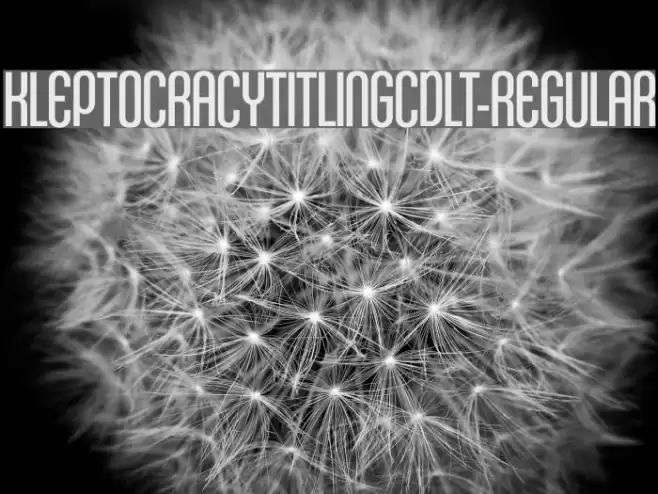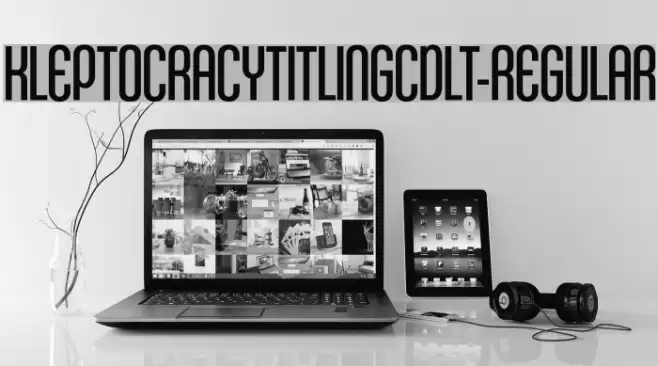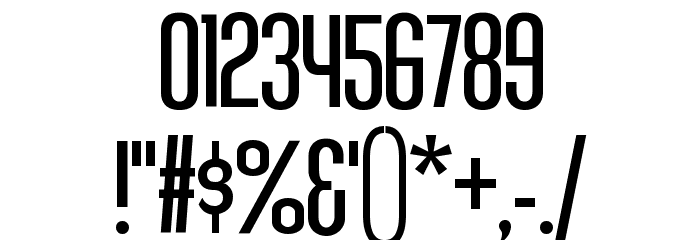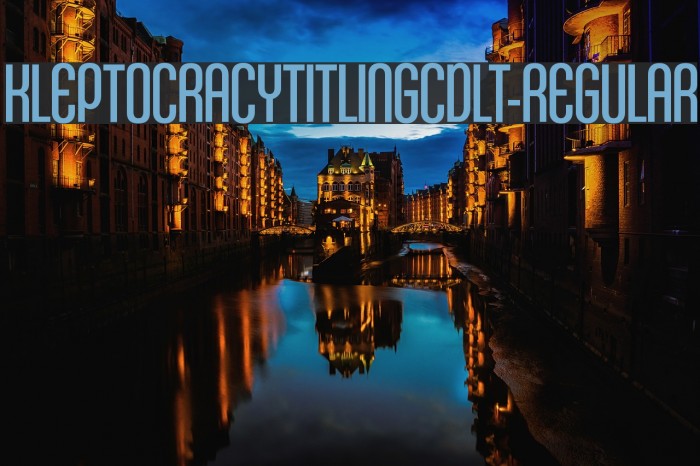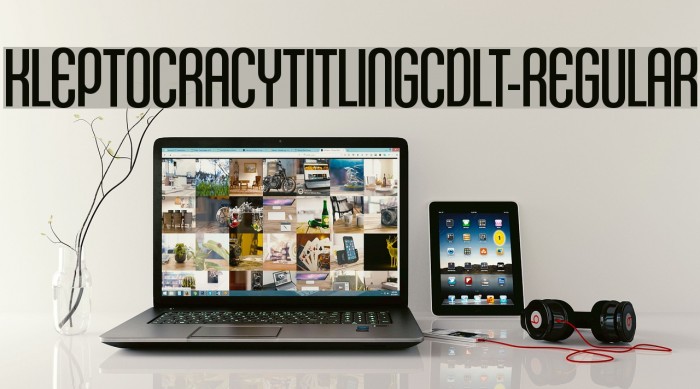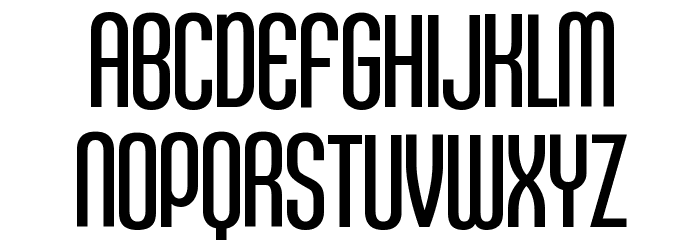
KleptocracyTitlingCdLt-Regular Font
KleptocracyTitlingCdLt-Regular Description
This font features a tall, condensed structure with a modern and sleek appearance. The characters are uniform in height, creating a cohesive and streamlined look. The vertical strokes are prominent, while the horizontal strokes are minimal, giving it a distinctive and elegant style. The font maintains a consistent width across all characters, enhancing its readability and making it suitable for various design applications. Its geometric form and clean lines make it ideal for contemporary projects that require a bold yet sophisticated touch.
A tall, condensed font with a modern and sleek appearance from Uncategorized fonts.
- Proposed Projects: Ideal for branding, headlines, posters, and modern web design.